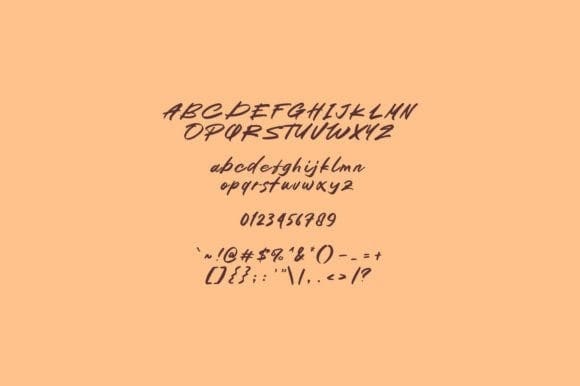
Wood Dragon Font
Wood Dragon Font is a modern rough script font perfect for posters, logos, magazines, book covers, banners, and many more! Get this amazing font, and use it to create lovely designs. It can easily be matched to an incredibly large set of projects, so add it to your creative ideas and notice how it makes them stand out!